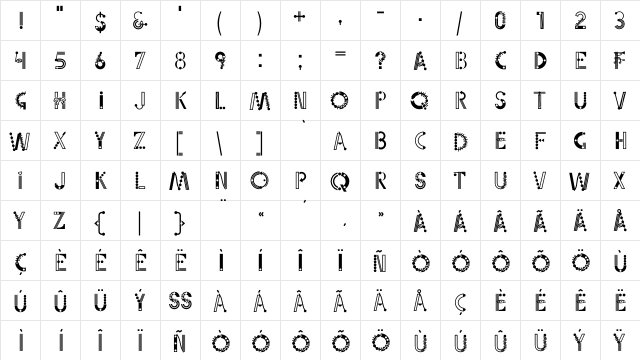
LTPartyTime Regular Font Preview
LTPartyTime Regular
LTPartyTime Regular Font Details
Design Context for LTPartyTime Typeface
LTPartyTime is a composed and adaptable typeface that performs quietly and consistently across a wide range of design contexts.